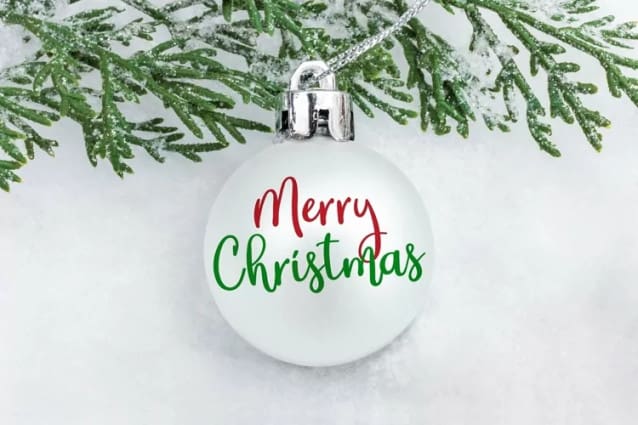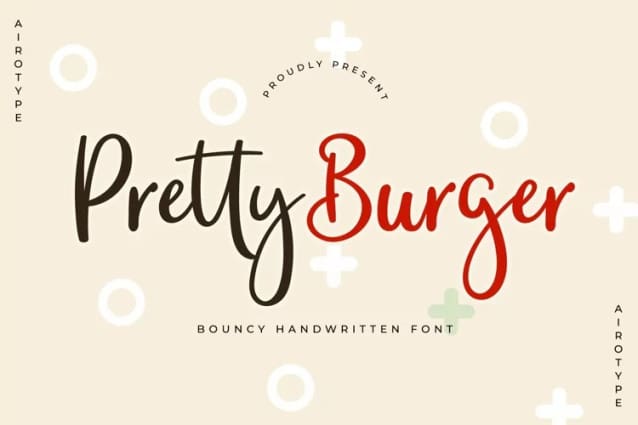
Pretty Burger Font
Pretty Burger Font is simple casual handwritten font. It is flowing and natural. This font has perfect handwritten touch for your fun and brightful design project, such as greeting cards, logo, branding, social media, and many others.